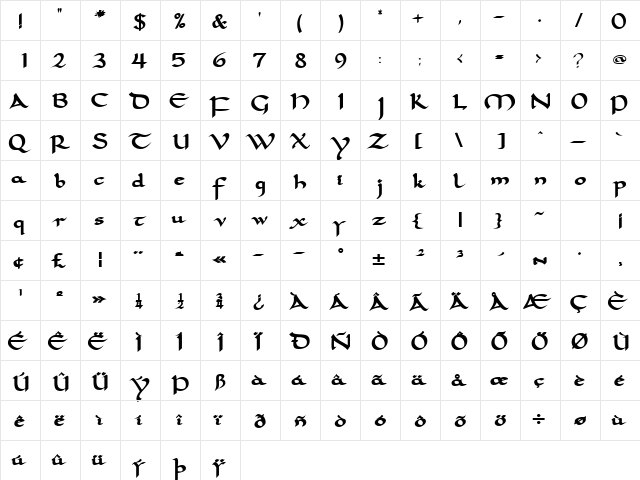
SamovarSSK Bold
Design Context for SamovarSSK Typeface
SamovarSSK is a composed and adaptable typeface that performs quietly and consistently across a wide range of design contexts. Its bold stroke weight gives it real presence on the page.